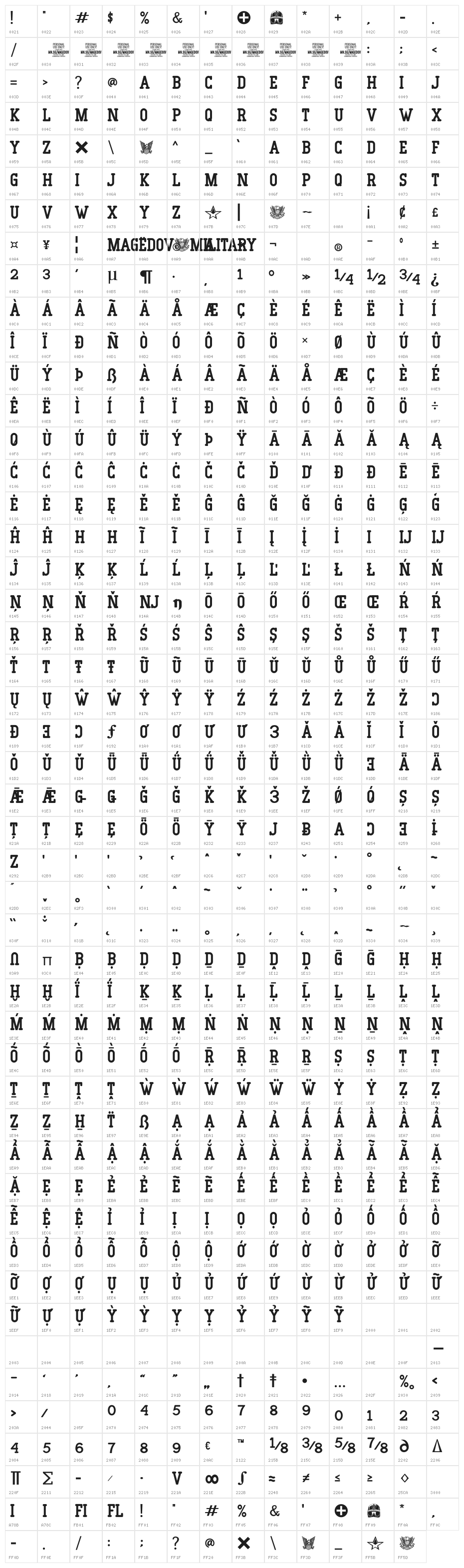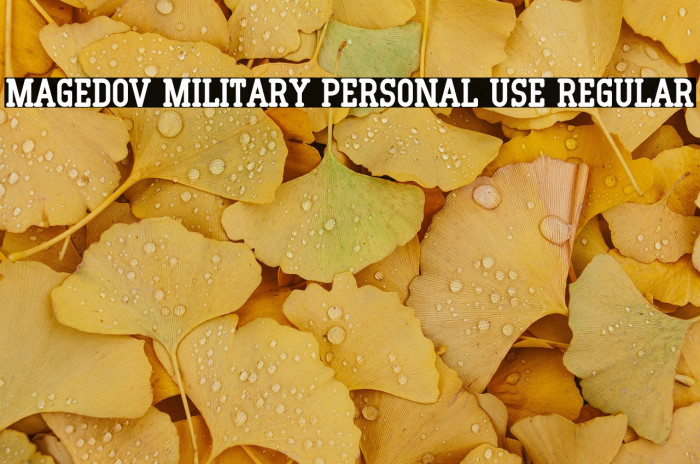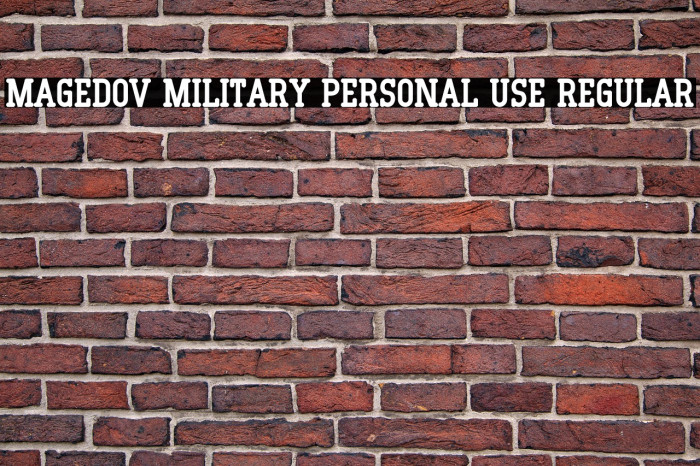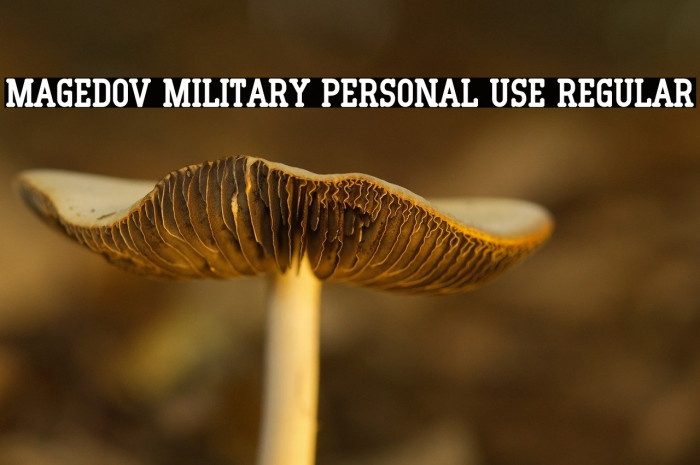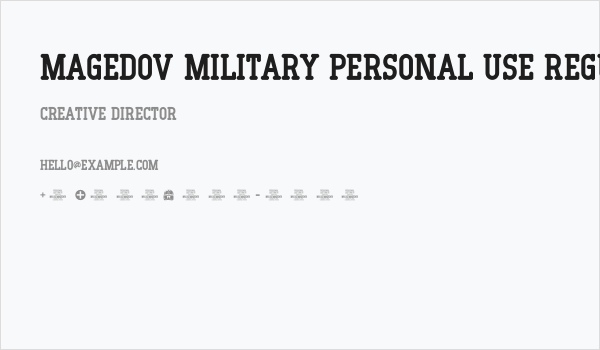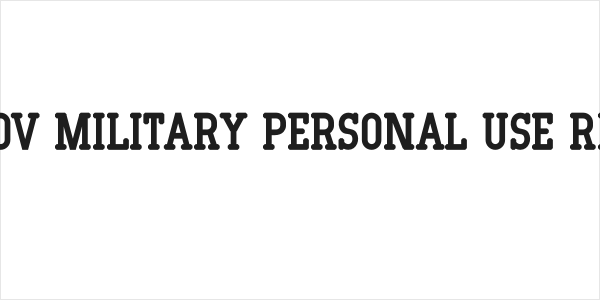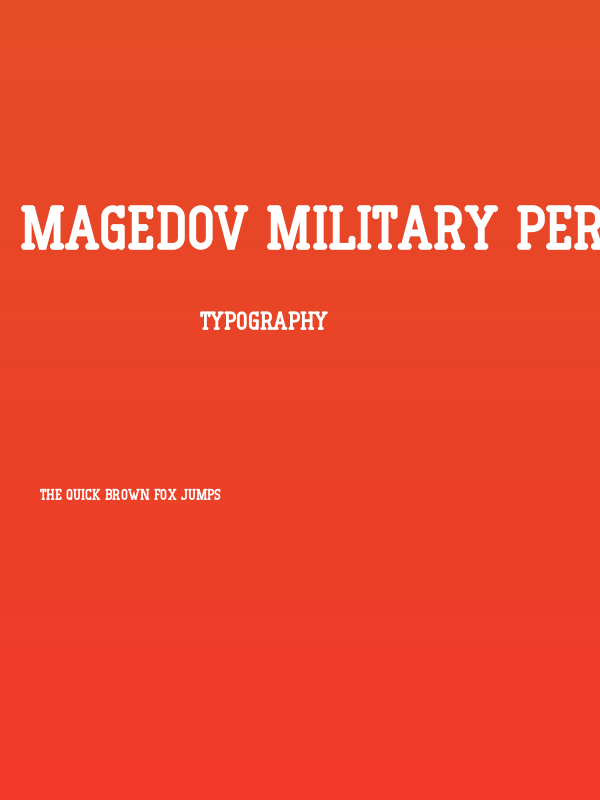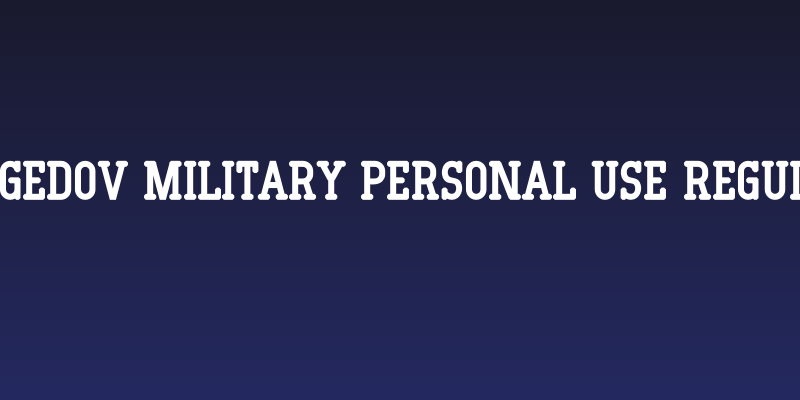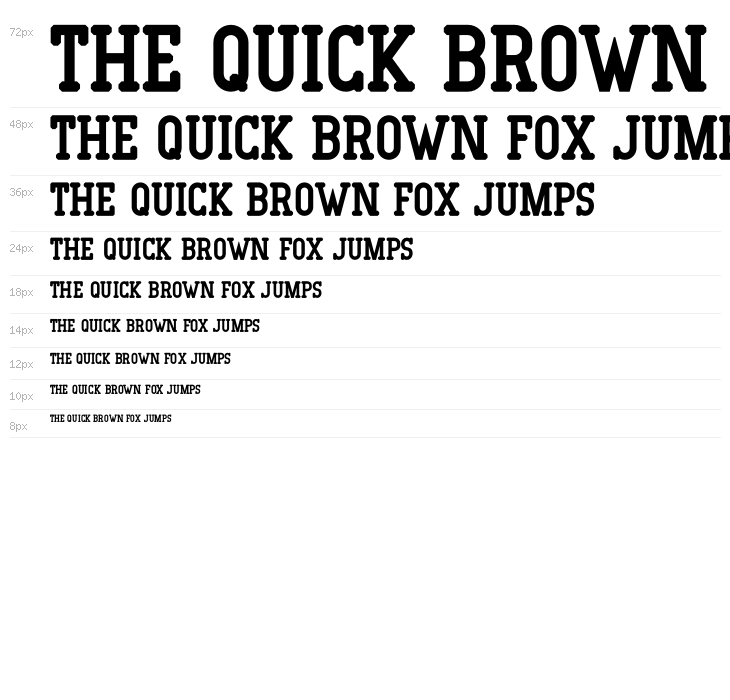
Magedov Military PERSONAL USE Regular Font
Magedov Military PERSONAL USE Regular Description
This font features a bold and robust design with a strong presence, characterized by thick, block-like serifs and a uniform stroke width. The letters are evenly spaced, providing a clean and organized appearance. The uppercase letters are particularly striking, with a military-inspired aesthetic that conveys strength and authority. The lowercase letters maintain the same boldness, ensuring consistency throughout the typeface. The numerals and special characters are designed to match the overall style, making them suitable for a variety of uses. This font's design is both functional and decorative, making it ideal for projects that require a commanding visual impact.
| Overall Style | Military, Decorative |
| Proposed Projects | Ideal for military-themed designs, posters, headlines, branding, and any project requiring a strong, authoritative look. |